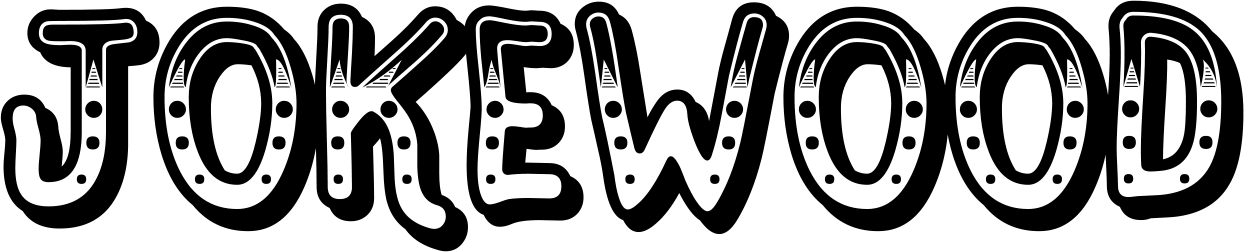
Jokewood Font
Jokewood is a Western font that has been modernized and comes with bold, 3D, amusing characters. If you are into Western culture and want to add a bit of old Cowboy days vibes to your projects then go ahead and use Jokewood. It’s for free after all!
Jokewood contains uppercase letters along with numbers, meaning that there are no lowercase or punctuation in the character collection. It will work best on your Western movie posters, signs, product packaging, print T-shirts, game graphics, and more!